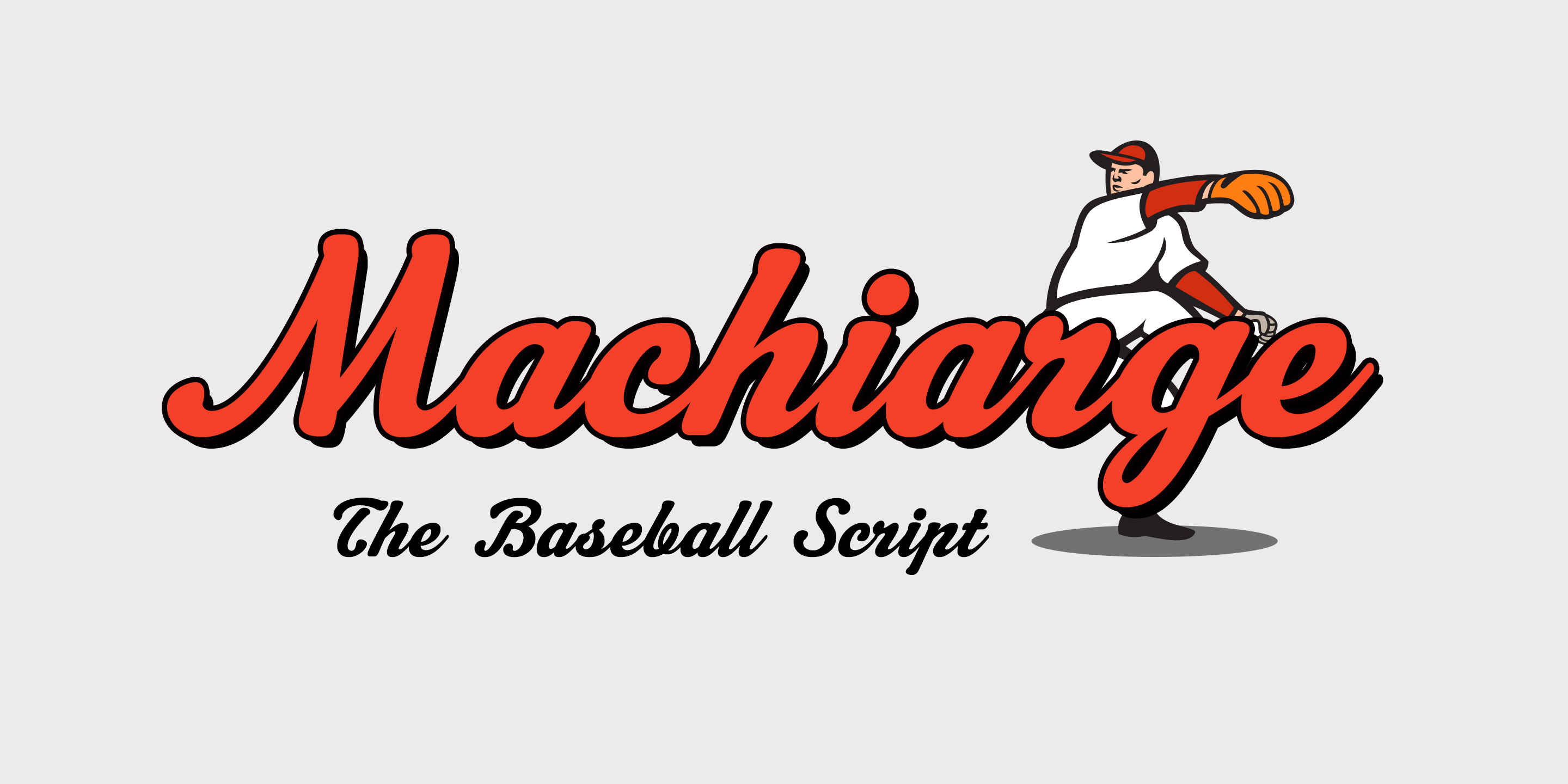
Machiarge is a brush script font published by Dharma Type.
Best selling baseball script, Distinctive brush stroke inspired by retro 20th century’s movie.